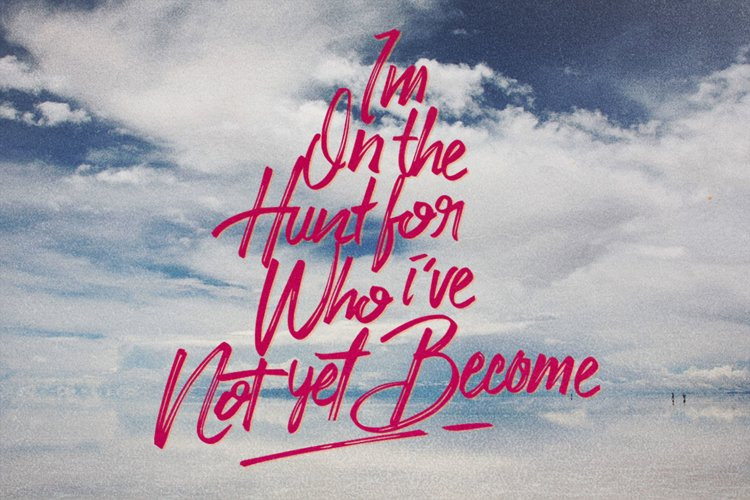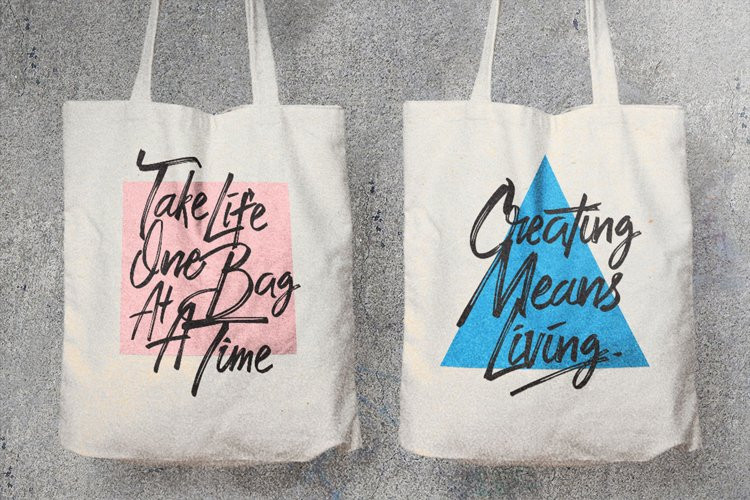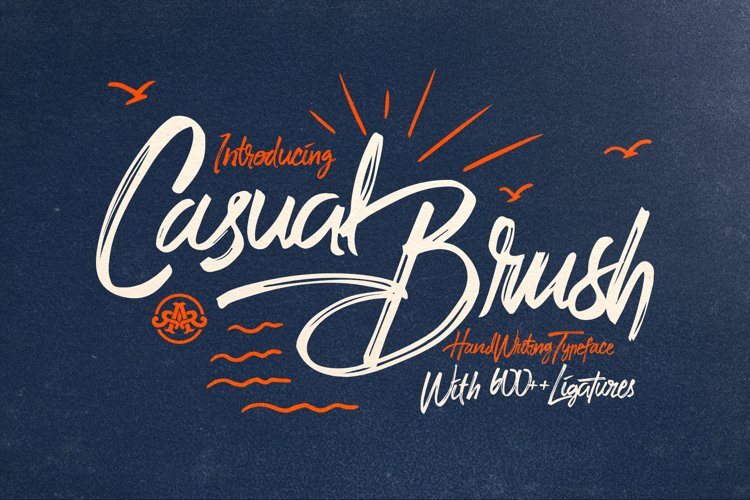
Casual Brush Font
Casual Brush FontIntroducing new hand writing typeface called Casual Brush. Inspired from instant hand writing typography combine with exhausted pen brush. With 600++ ligature pairs and 2 stylistic alternates Casual Brush offer the hand writing feel with different combination letter in every single word. Casual Brush Typeface best uses for Logo, Logo type, quotes, apparel design, invitations, flyer, poster, greeting cards, product packaging, headers, printed quotes, cover album, etc